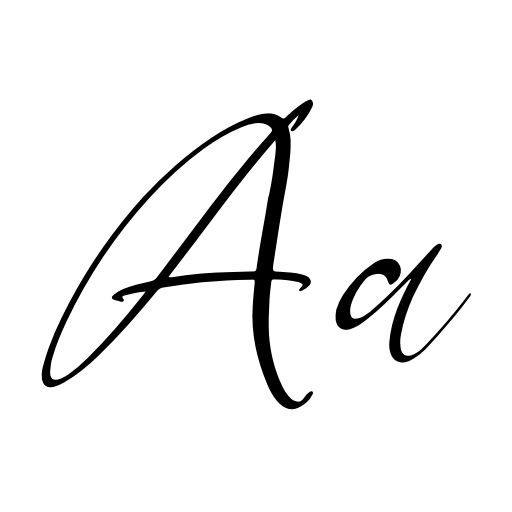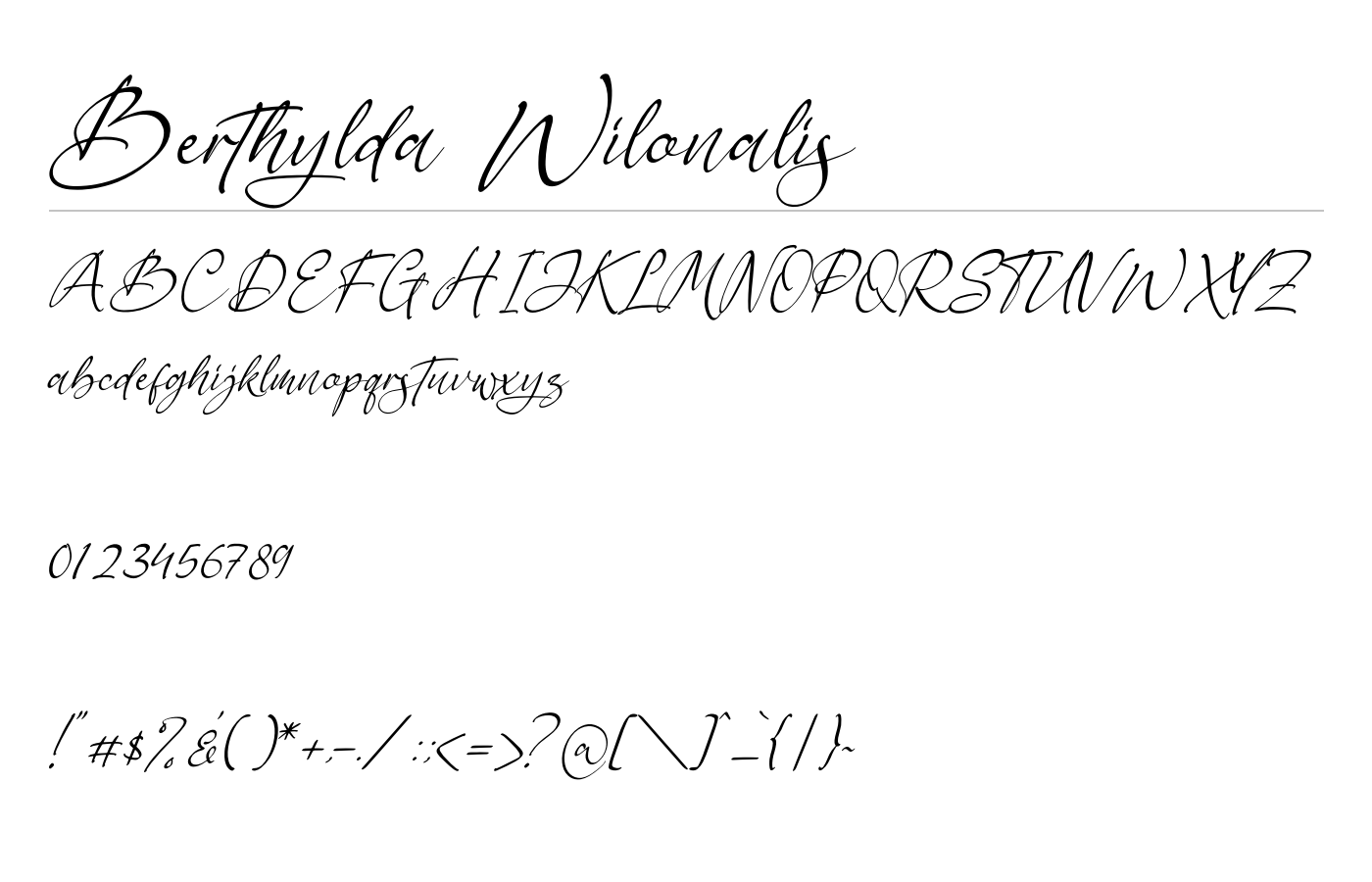
Berthylda Wilonalis is an elegant, delicate script font with a refined, handwritten style characterized by flowing, thin strokes and graceful swashes. Its high contrast and airy letterforms create a sophisticated and romantic feel, making it ideal for luxury branding, wedding invitations, and upscale editorial projects. This font brings a personal, artistic touch that works beautifully in headlines and decorative text where elegance and charm are desired.
Berthylda Wilonalis Font
About Berthylda Wilonalis Font
| Font family | Berthylda Wilonalis Font |
| Designer | Nanang Jamaludin |